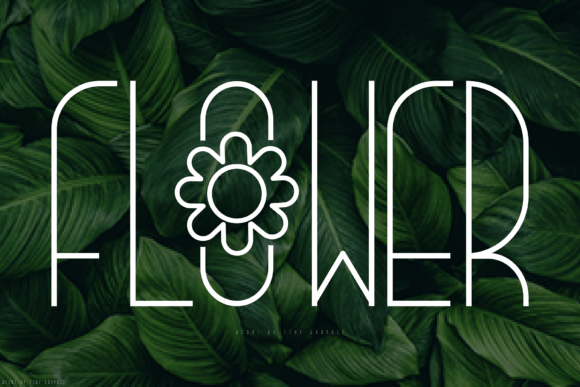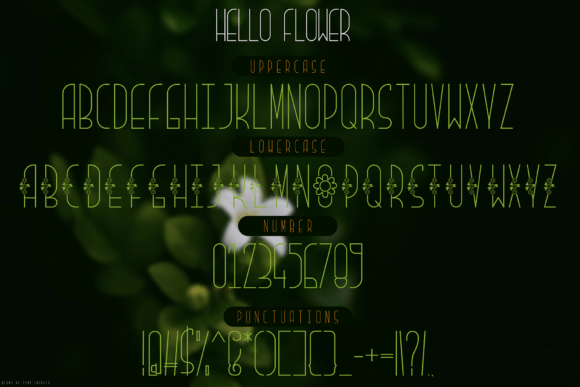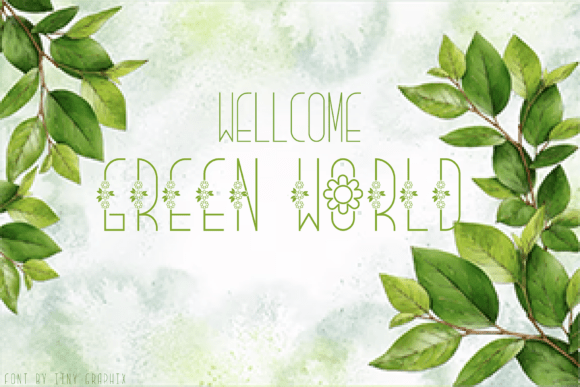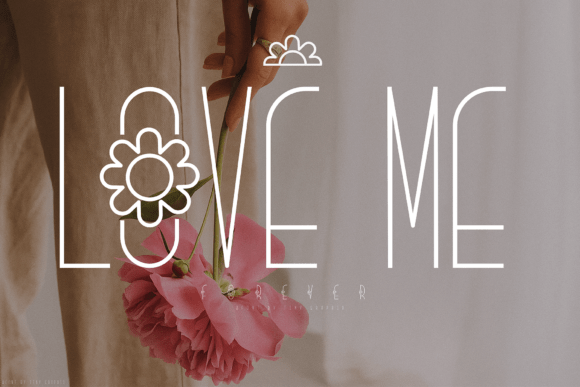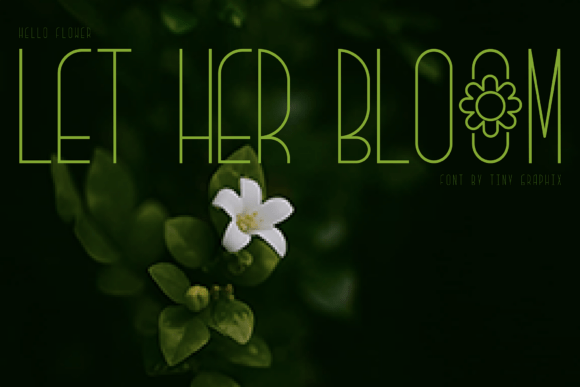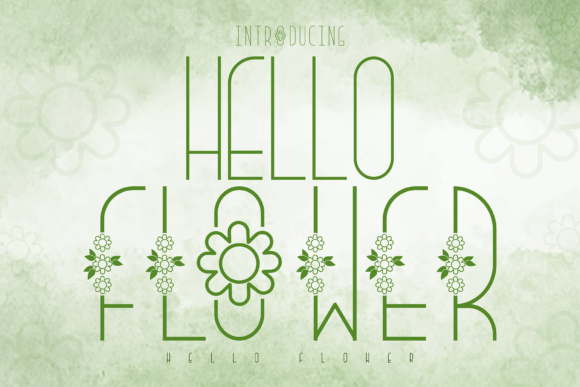
✨ Bloom Typeface – A Whimsical Floral Decorative Font ✨
Are you looking for a font that can add a touch of elegance and whimsy to your designs? Look no further than Bloom, a delicate and stylish decorative display font inspired by nature’s elegance. With its thin, graceful strokes and charming floral details, Bloom is perfect for designers and crafters who want to create eye-catching projects that stand out from the crowd.
A Stylish and Versatile Font for Any Design
Bloom is a stylish and versatile decorative font that combines modern minimalism with a natural floral touch. Its elegant curves and delicate details make it perfect for a wide range of design applications, from logos and greeting cards to packaging and posters. Whether you’re a professional designer or a crafty DIY enthusiast, Bloom is a great choice for anyone looking to add a fresh, organic touch to their designs.
Inspired by Nature’s Elegance
Bloom is inspired by the beauty and elegance of nature, with a focus on delicate floral details and thin, graceful strokes. The font’s design is reminiscent of a spring morning, with its soft, flowing curves and charming details that evoke the feeling of blooming flowers. With Bloom, you can bring a touch of the outdoors into your designs and create projects that are both beautiful and eye-catching.
Bloom is a versatile font that can be used for a wide range of design applications, including:
- Wedding invitations & stationery: Add a touch of elegance and whimsy to your wedding designs with Bloom’s delicate floral details and elegant curves.
- Greeting cards & quotes: Use Bloom to create beautiful and eye-catching greeting cards and quotes that are perfect for any occasion.
- Logos & branding: Create a unique and memorable brand identity with Bloom’s stylish and versatile design.
- Social media graphics: Use Bloom to create eye-catching social media graphics that stand out from the crowd.
- Spring & summer projects: Bloom is perfect for any design project that needs a fresh, seasonal touch.
- Holiday and celebration designs: Use Bloom to create beautiful and festive designs for holidays and celebrations.
Bring Your Words to Life with Bloom
Bloom is more than just a typeface – it’s a creative tool that can help bring your words to life. With its natural, blooming beauty, Bloom can add a touch of magic to any design project. Whether you’re looking to create a beautiful wedding invitation or a eye-catching social media graphic, Bloom is the perfect choice.
Why Choose Bloom?
There are many reasons why Bloom is a great choice for designers and crafters, including:
- Unique and eye-catching design: Bloom’s delicate floral details and elegant curves make it a standout font that’s sure to grab attention.
- Versatile: Bloom can be used for a wide range of design applications, from logos and branding to social media graphics and holiday designs.
- Elegant and whimsical: Bloom’s design is both elegant and whimsical, making it perfect for designers and crafters who want to create beautiful and eye-catching projects.
In conclusion, Bloom is a beautiful and versatile decorative font that’s perfect for designers and crafters who want to add a touch of elegance and whimsy to their designs. With its delicate floral details, elegant curves, and natural, blooming beauty, Bloom is a great choice for any design project. Whether you’re looking to create a beautiful wedding invitation or a eye-catching social media graphic, Bloom is the perfect choice. So why wait? Download Bloom today and start creating beautiful and eye-catching designs that will make your words flourish in any season! 🌿